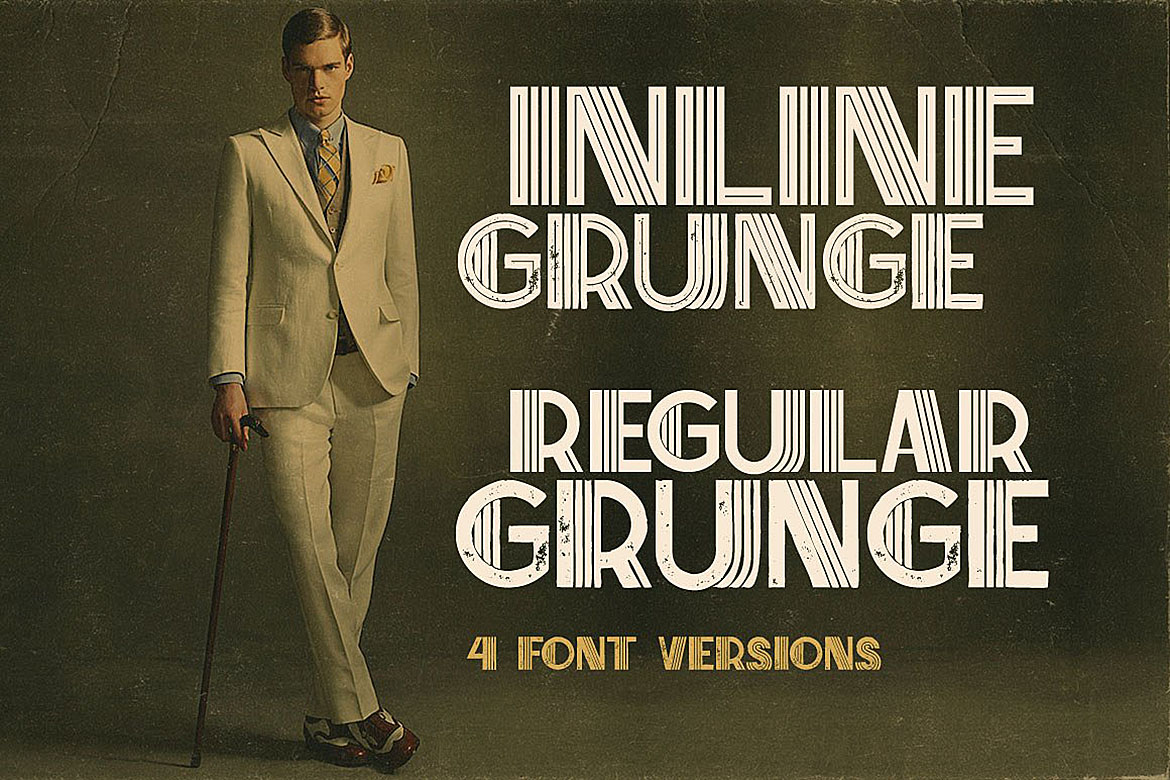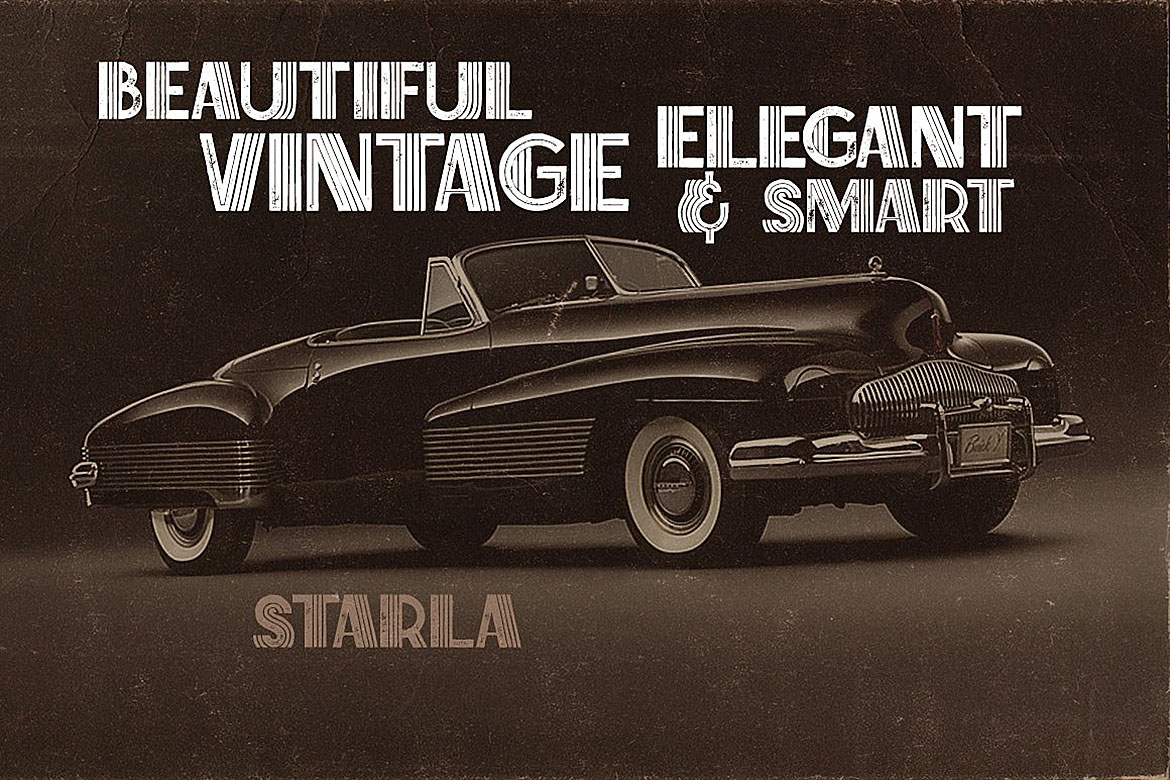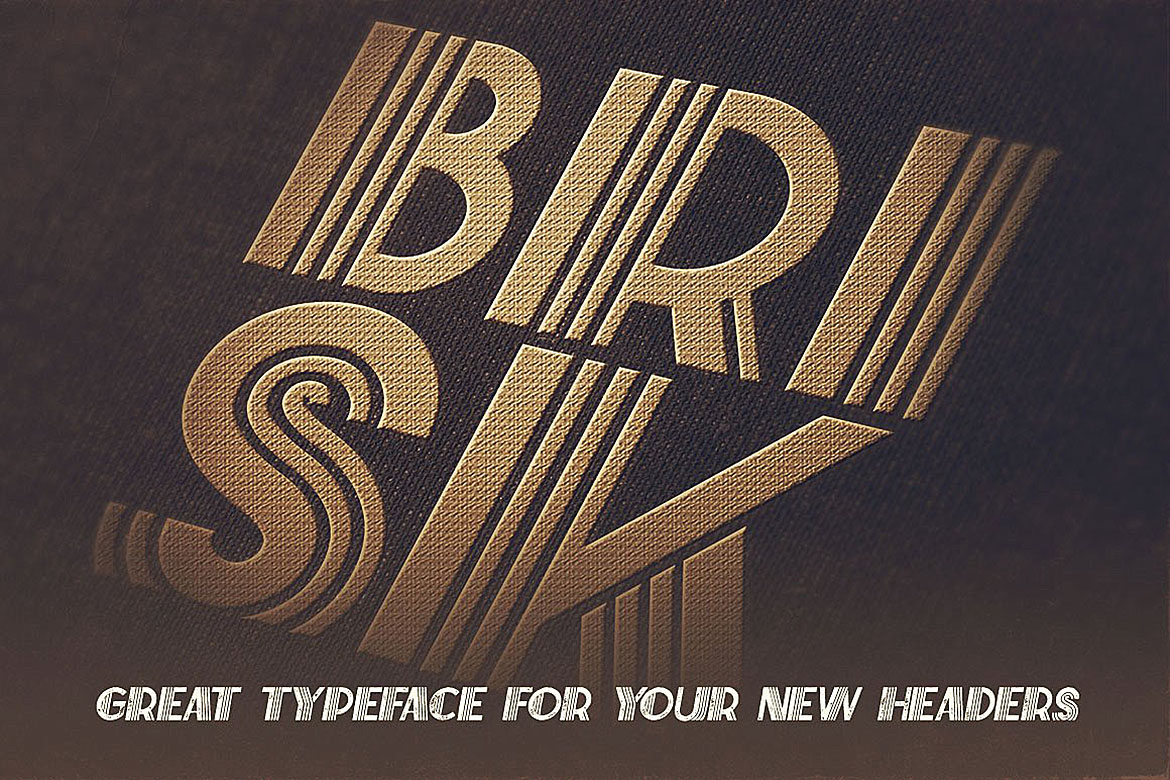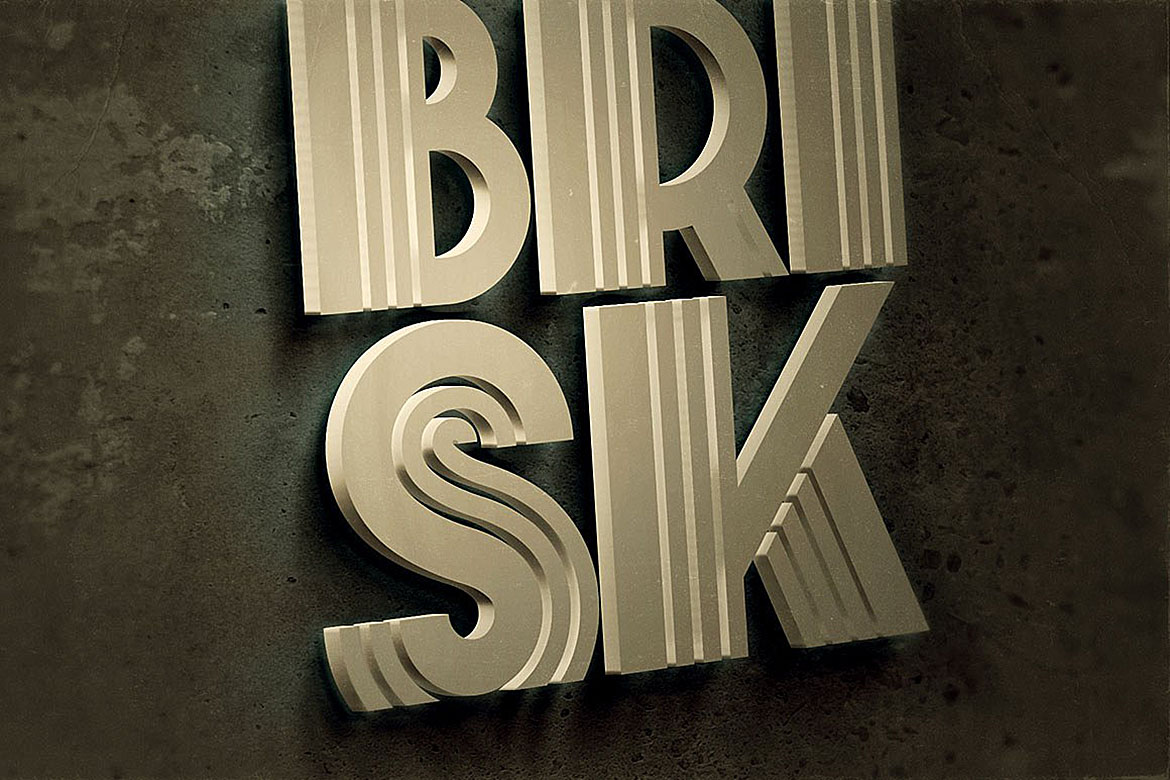
Introducing Brisk Font: A Retro Art Deco Masterpiece
Are you tired of using the same old fonts in your designs? Look no further! Brisk Font is a unique and stylish typeface that combines the elegance of art deco with a retro twist. Inspired by the opulence and glamour of the Roaring Twenties, Brisk Font is the perfect addition to any design project that requires a touch of sophistication and nostalgia.
What is Brisk Font?
Brisk Font is a carefully crafted font that pays homage to the art deco movement, which emerged in the 1920s and flourished until the 1940s. Characterized by its geometric shapes, metallic materials, and ornate decorations, art deco is a design style that exudes luxury, modernity, and glamour. Brisk Font captures the essence of this iconic style, with its bold lines, ornate details, and vintage charm.
Key Features of Brisk Font
- 4 Different Styles: Brisk Font comes with four distinct styles, allowing you to customize your designs to suit your taste and creative vision. Whether you’re looking for a bold and dramatic look or a more subtle and elegant appearance, Brisk Font has got you covered.
- Retro Art Deco Design: Inspired by the art deco movement, Brisk Font boasts a unique and stylish design that is sure to transport your designs back in time to the Roaring Twenties.
- Highly Customizable: With four different styles to choose from, you can mix and match to create a unique look that suits your brand or design project.
- Perfect for Designers and Crafters: Brisk Font is ideal for designers, crafters, and DIY enthusiasts looking to add a touch of vintage glamour to their projects.
Uses for Brisk Font
Brisk Font is a versatile typeface that can be used in a variety of design projects, including:
- Graphic Design: Use Brisk Font to create stunning posters, flyers, and brochures that showcase your brand’s personality and style.
- Crafting and DIY Projects: Add a touch of vintage charm to your crafting and DIY projects, such as handmade cards, scrapbooking, and journaling.
- Web Design: Use Brisk Font to create a unique and stylish website that stands out from the crowd.
- Social Media Graphics: Create eye-catching social media graphics that showcase your brand’s personality and style.
Why Choose Brisk Font?
With so many fonts available, why choose Brisk Font? Here are just a few reasons:
- Unique and Stylish Design: Brisk Font boasts a unique and stylish design that is sure to make your designs stand out from the crowd.
- Highly Customizable: With four different styles to choose from, you can customize your designs to suit your taste and creative vision.
In conclusion, Brisk Font is a unique and stylish typeface that is perfect for designers, crafters, and DIY enthusiasts looking to add a touch of vintage glamour to their projects. With its retro art deco design, four different styles, and high customizability, Brisk Font is the ultimate font solution for anyone looking to create stunning designs that stand out from the crowd. So why wait? Download Brisk Font today and start creating!